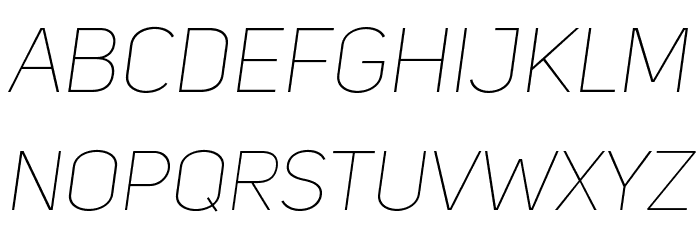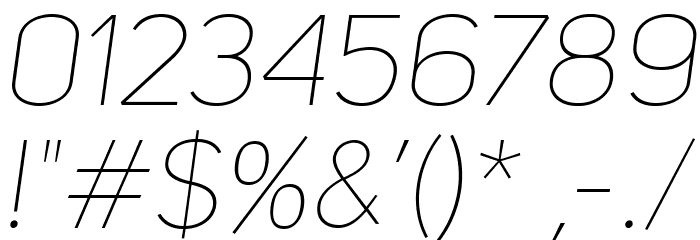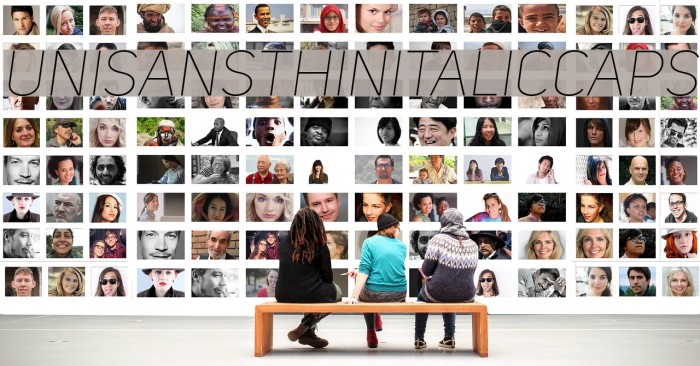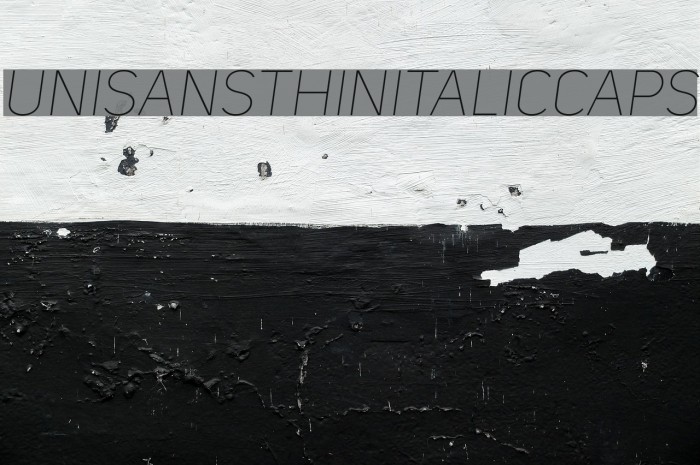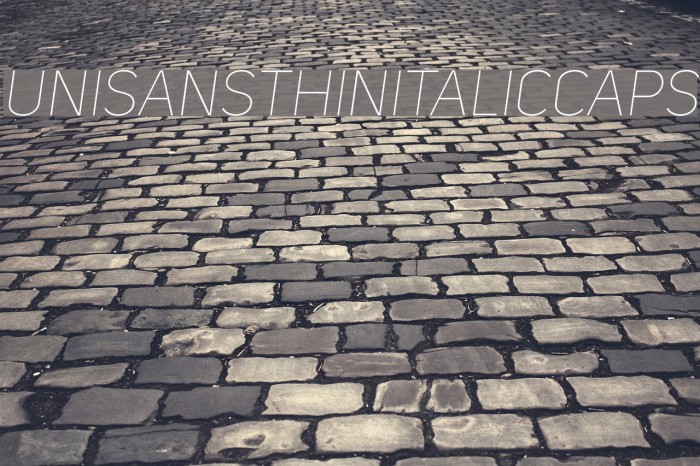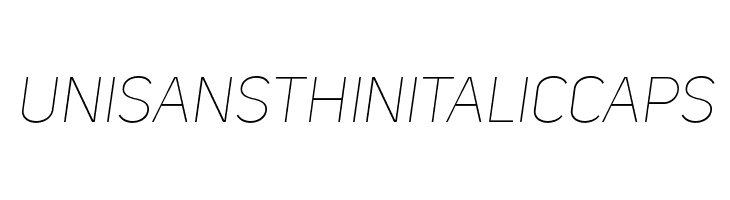
UniSansThinItalicCAPS Font
This font features a sleek, modern design with a thin, italicized style. The characters are elongated and slightly slanted, giving a sense of motion and elegance. The uppercase and lowercase letters maintain a consistent height, contributing to a uniform appearance. The numerals are clean and straightforward, complementing the overall minimalist aesthetic. Special characters are well-integrated, maintaining the same thin and italicized form. The font's simplicity and clarity make it highly versatile for various design applications.
A modern, thin, italicized font with a sleek and elegant design.
- Proposed Projects: Ideal for modern branding, fashion magazines, tech company logos, and minimalist design projects.